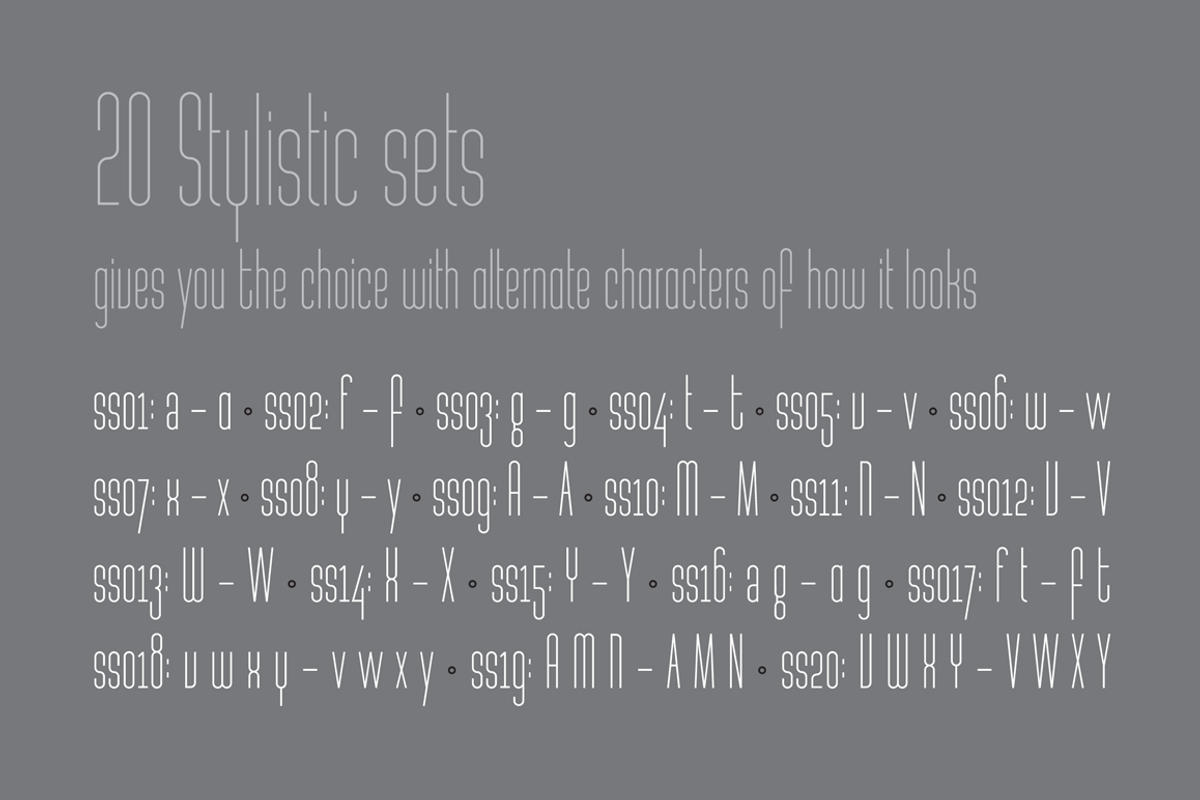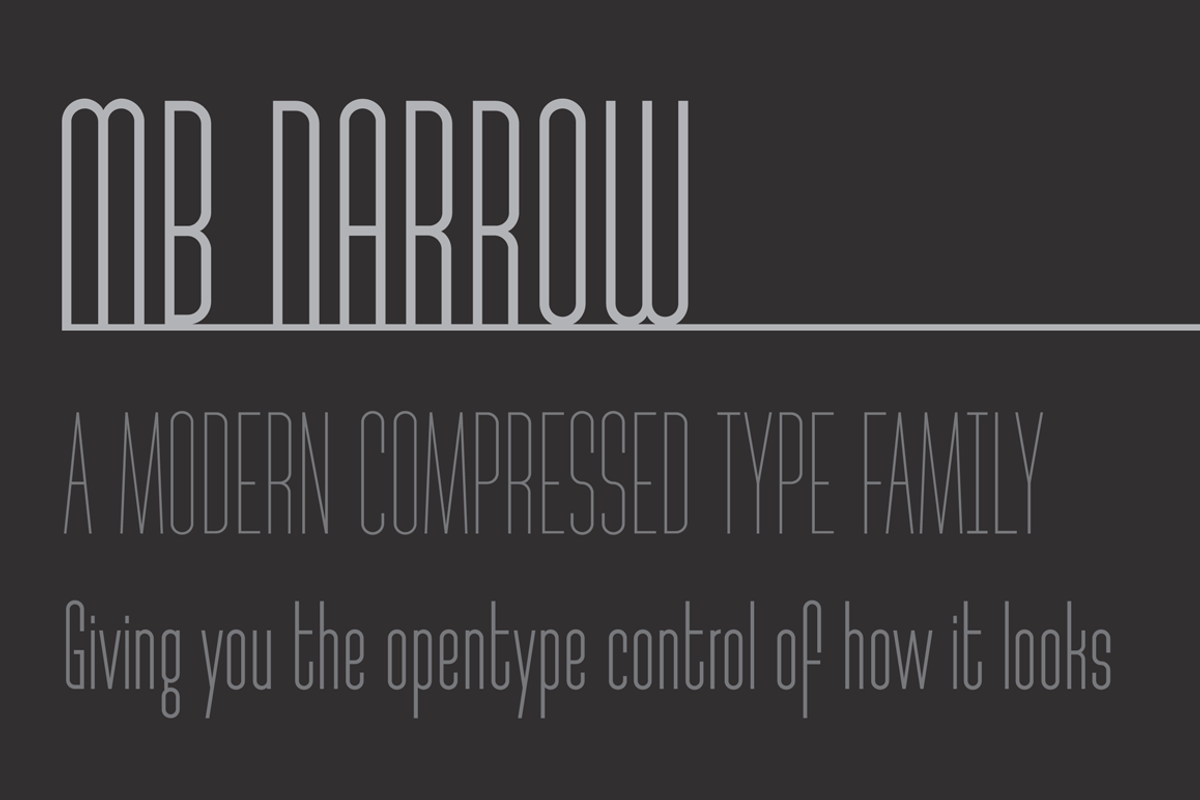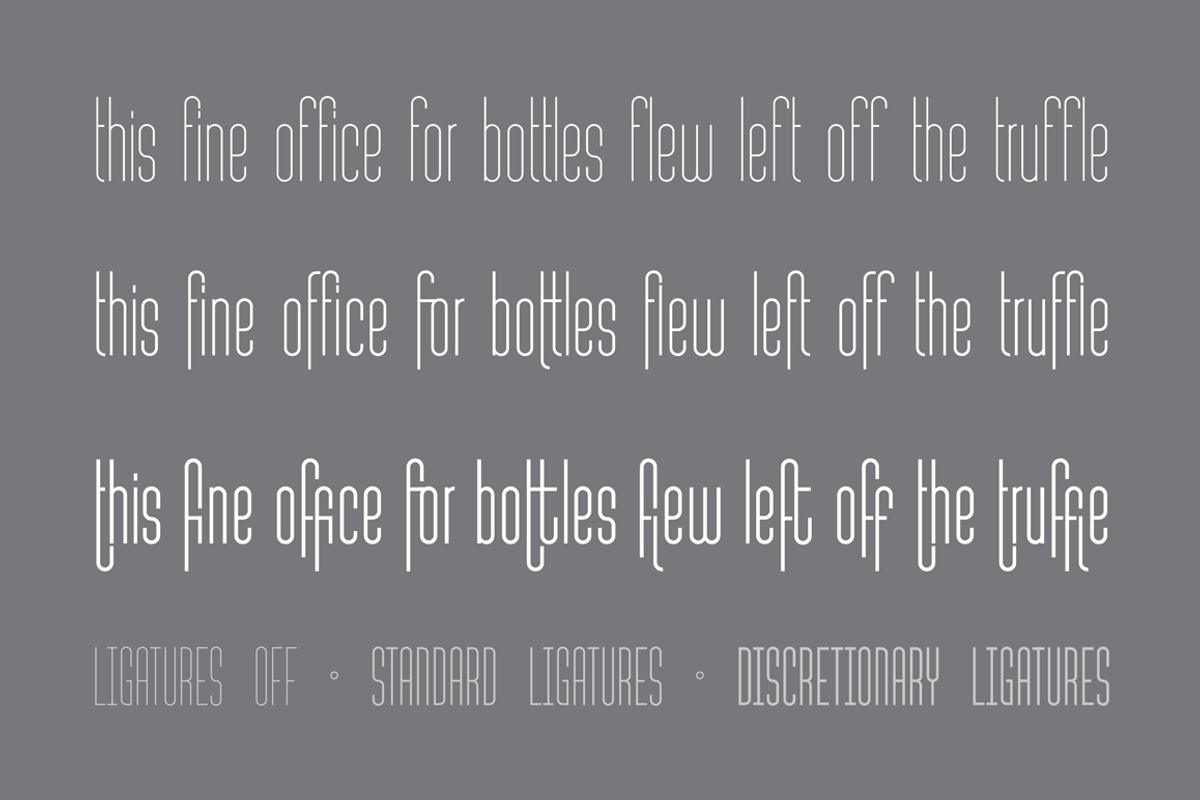
MB Narrow
MB Narrow by Ben Burford Fonts is a font selected for branding, posters, packaging, typography.
- without using the sets it has a very rounded and geometric look but with alternates for the Capital A, M, N, V, W, X, Y and the lowercase a,
- With the additon of some nice standard & discretional ligatures and also oldstyle figures there are plenty of opentype features.
Why MB Narrow is worth a look
MB Narrow by Ben Burford Fonts fits naturally into Branding, posters, packaging, typography.